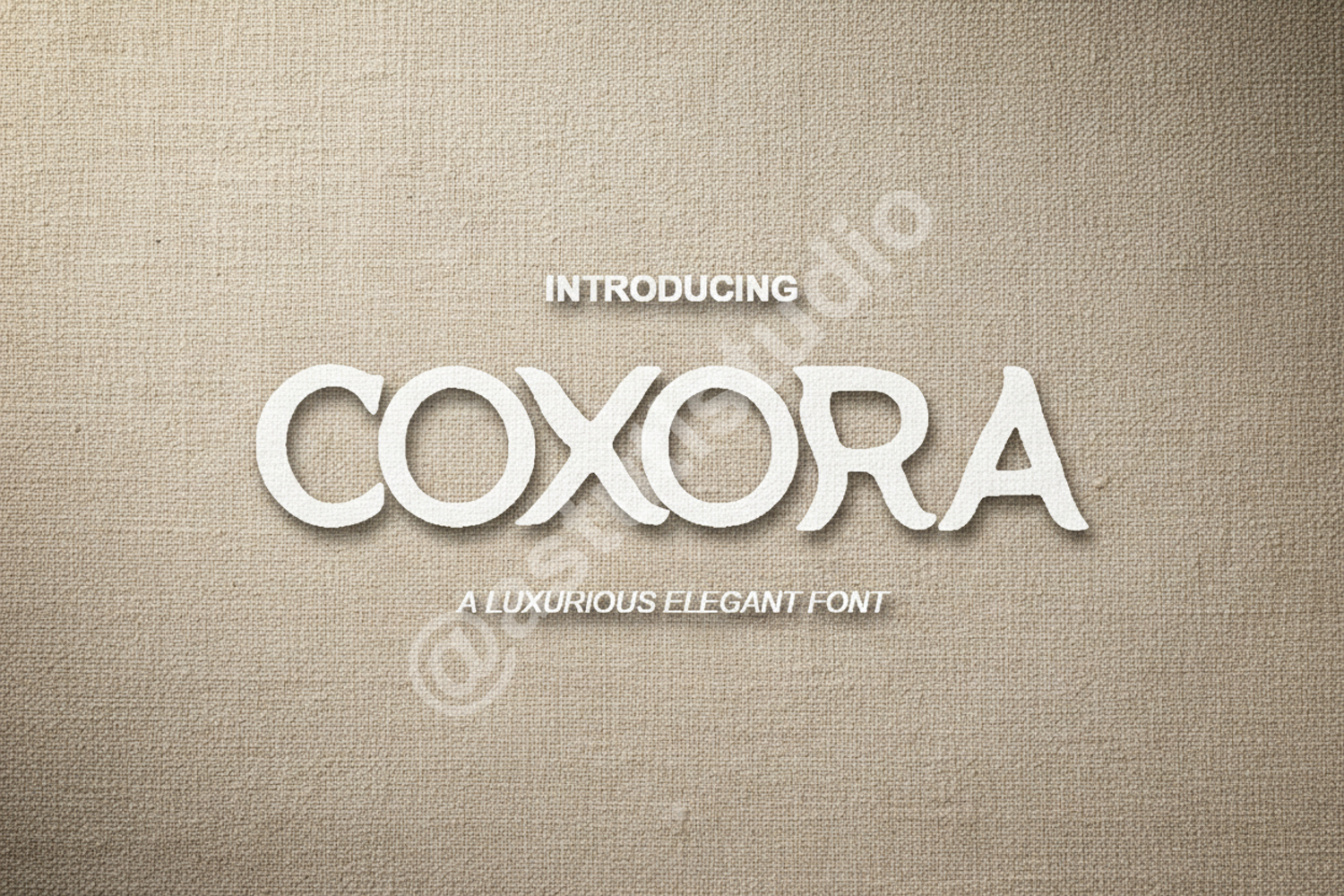
Coxora - Elegant Modern Serif Display Font
Coxora
Coxora is a premium serif font designed to bring a touch of sophisticated elegance and modern flair to your creative projects. With its clean lines and unique character shapes, Coxora stands out as a versatile choice for designers seeking a high-end aesthetic. Whether you are working on a luxury brand identity or a minimalist editorial layout, this font provides the professional finish your work deserves.
- Branding and Visual Identity: Create memorable logos and brand marks that exude luxury.
- Wedding Stationery: Elevate invitations, RSVP cards, and menu designs with timeless typography.
- Editorial Design: Perfect for magazine headings, book covers, and high-fashion layouts.
- Digital Marketing: Enhance social media graphics and website headers with a clean, professional look.
- Product Packaging: Add a premium feel to labels and packaging for upscale consumer goods.